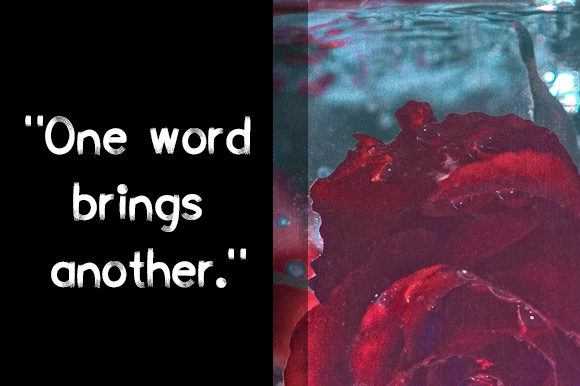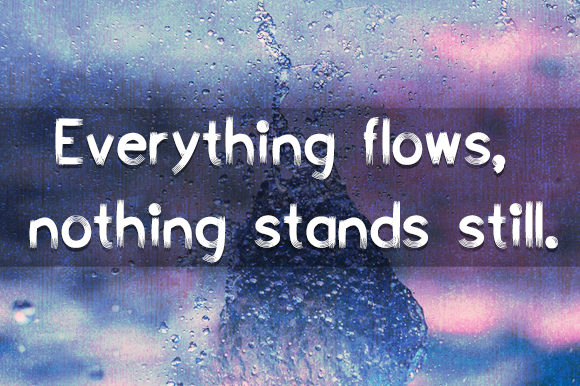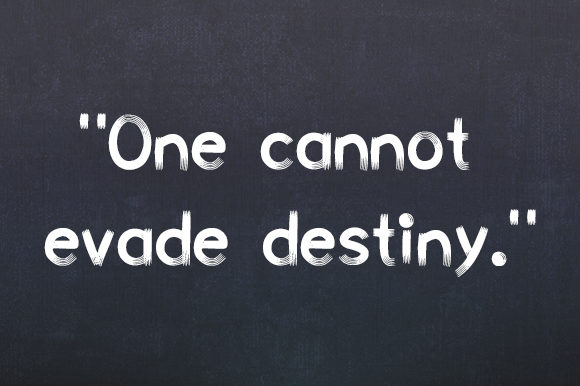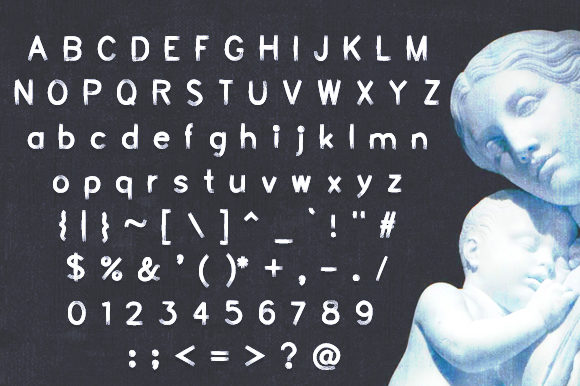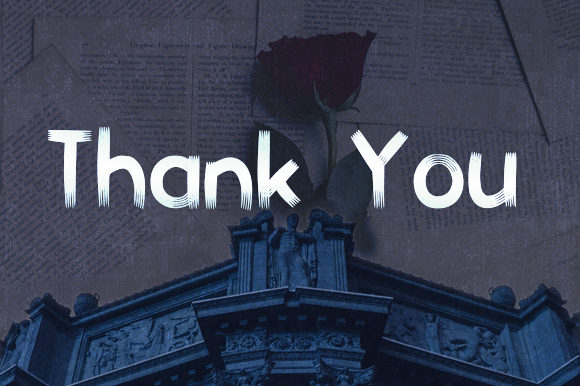
Achilles Font: The Ultimate Sans Serif for Your Design Projects
Achilles is a unique sans serif font that can be used for just about any project! Whether you’re a designer, crafter, or simply someone who loves typography, Achilles is a versatile and stylish font that’s sure to impress. In this article, we’ll take a closer look at the Achilles font, its features, and how you can use it to elevate your design projects.
What is Achilles Font?
Achilles is a modern sans serif font that’s designed to be clean, crisp, and highly legible. Its sleek lines and minimalist aesthetic make it perfect for a wide range of applications, from digital designs to print materials. The font is named after the legendary Greek hero Achilles, known for his strength and bravery – qualities that are reflected in the font’s bold and confident style.
Key Features of Achilles Font
So, what makes Achilles font so special? Here are some of its key features:
- Unique and distinctive design: Achilles has a one-of-a-kind style that’s both modern and timeless.
- Highly legible: The font is designed to be easy to read, even at small sizes.
- Versatile: Achilles can be used for a wide range of projects, from headings and titles to body text and more.
- Sans serif: The font’s clean, sans serif design makes it perfect for digital applications.
How to Use Achilles Font in Your Design Projects
So, how can you use Achilles font in your design projects? Here are some ideas to get you started:
- Headings and titles: Use Achilles to create bold, eye-catching headings and titles that grab attention.
- Branding and logos: Achilles is a great choice for logos and branding materials, thanks to its unique and memorable style.
- Digital designs: The font’s clean, sans serif design makes it perfect for digital applications, such as website designs, social media graphics, and more.
- Print materials: Achilles can also be used for print materials, such as brochures, flyers, and posters.
Tips for Pairing Achilles Font with Other Fonts
When pairing Achilles font with other fonts, here are some tips to keep in mind:
- Contrast with serifs: Pair Achilles with a serif font to create a striking contrast between modern and traditional styles.
- Match with similar sans serifs: Combine Achilles with another sans serif font to create a cohesive, harmonious look.
- Experiment with script fonts: Achilles can also be paired with script fonts to add a touch of elegance and sophistication.
In conclusion, Achilles font is a unique and versatile sans serif font that’s perfect for a wide range of design projects. Its clean, modern design and high legibility make it a great choice for headings, titles, and body text. With its bold and confident style, Achilles is sure to elevate your designs and make them stand out from the crowd.